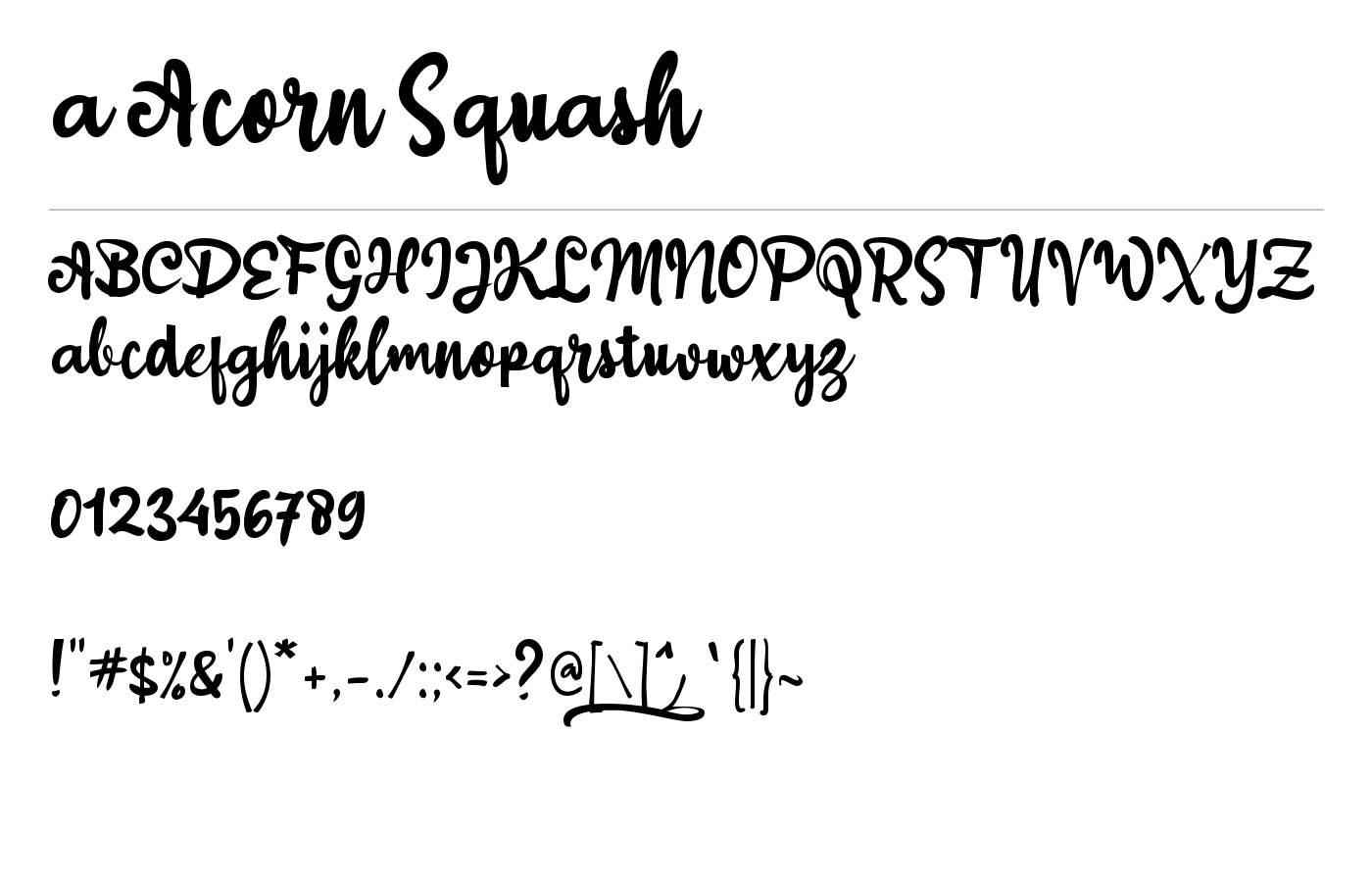
Acorn Squash is a lively and friendly script font with a bold, medium weight and a playful, hand-drawn feel. Its rounded, flowing letterforms feature unique flourishes and a smooth contrast, making it perfect for warm and inviting branding, casual headlines, or creative packaging that needs a charming, personal touch. This font adds a sense of approachable elegance while maintaining a fun, informal vibe.
a Acorn Squash Font
About a Acorn Squash Font